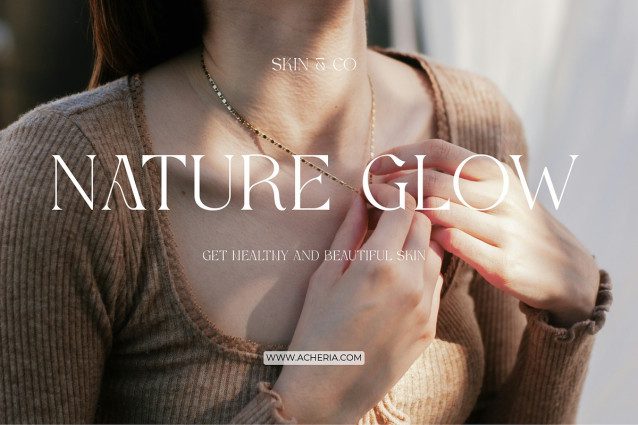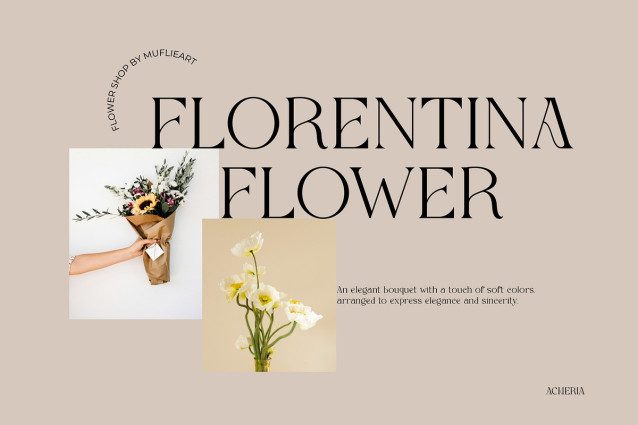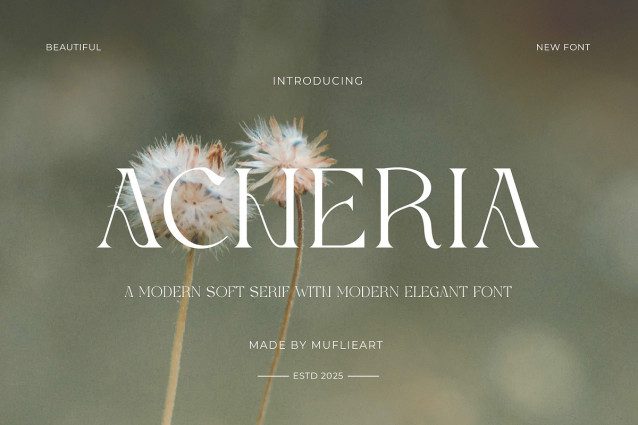
Acheria Font
Acheria Font, a Modern Soft Serif. With its modern and unique look Acheria brings a luxurious, classy and clean style to your projects such as websites, modern logos, brand identities, social media quotes, wedding stationery, magazines and more!
Acheria features unique and classy capital letters from A to Z making Acheria a beautiful font that can be customized for any project and work you desire.